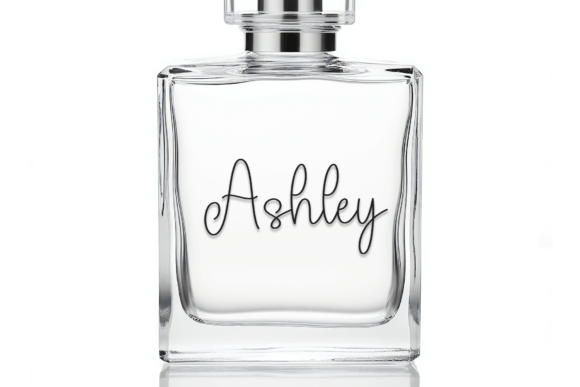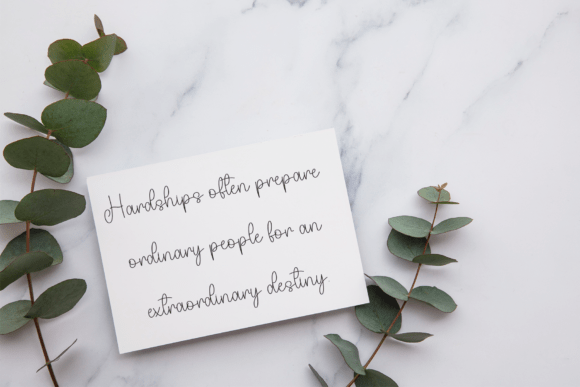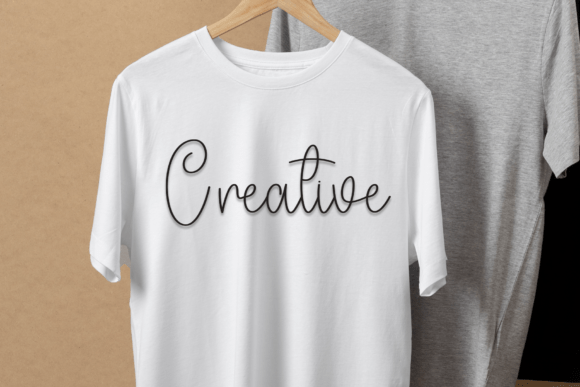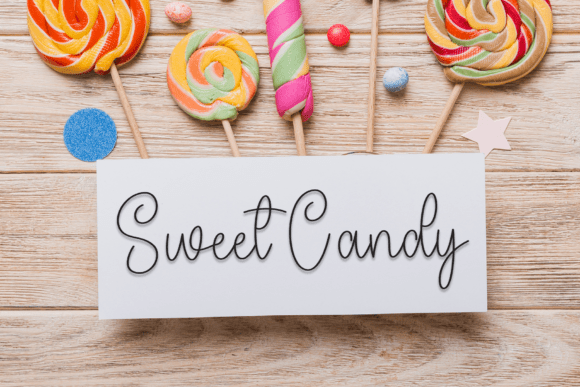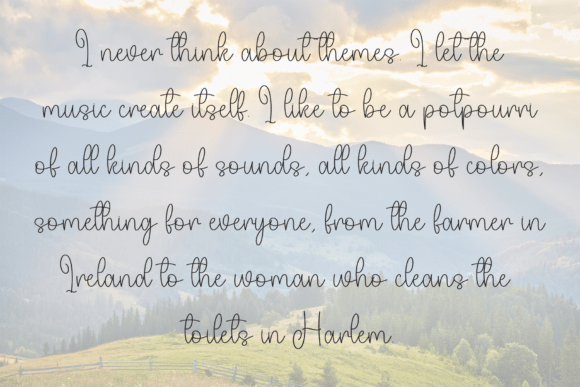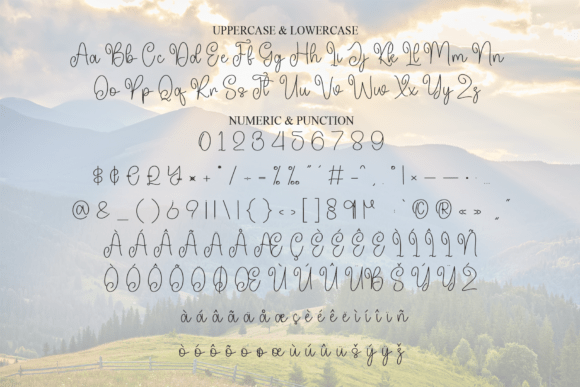
Introduction to Highland Sunshine Font
Remember the moment you stumbled upon the perfect font for your creative project? The one that made all the difference between a good design and an exceptional one? For designers, finding that elusive font can be a game-changer. And, if you’re looking for a stylish handwritten script font that exudes elegance and modern flair, look no further than the Highland Sunshine Font.
This beautiful typeface is more than just a design resource – it’s a key to unlocking the perfect visual identity for your brand, social media, or invitations. With its flowing strokes and organic curves, the Highland Sunshine Font brings warmth and sophistication to any project. Whether you’re working on a high-quality design or a simple yet effective social media post, this font is sure to add a personal, refined touch with effortless charm.
Key Features of Highland Sunshine Font
- High-quality, hand-drawn design ideal for creative projects and design resources.
- Features a unique, whimsical style with intricate details, making it perfect for adding a touch of personality to designs.
Honest Review: Highland Sunshine Font
I recently stumbled upon the Highland Sunshine Font while searching for a unique design resource for a creative project. Initially, I was drawn in by the font’s elegant and rustic vibe, which seemed perfect for a rustic-themed magazine cover.
What works well about the Highland Sunshine Font is its versatility. It’s available as a free download, making it an excellent option for designers on a budget. The font is also highly customizable, allowing you to easily adjust the size, color, and style to suit your needs. Additionally, it features a transparent background, which makes it easy to layer over other design elements.
- Rustic, elegant vibe
While the Highland Sunshine Font is a great addition to any design toolkit, there are a few limitations to be aware of ⚠️. For one, the font is not as extensive as some other options, with only a limited number of characters and styles available. Additionally, the font may not be suitable for use in very small text sizes, as it can appear somewhat blurry.
Overall, I’m impressed with the Highland Sunshine Font and would definitely recommend it to designers looking for a high-quality, free font for their creative projects ✨. With a little creativity and experimentation, this font has the potential to elevate your designs to the next level.
Using Highland Sunshine Font in Creative Projects
Tips for Getting the Most Out of Highland Sunshine Font
To get the most out of the Highland Sunshine Font, use it in combination with a transparent background to create a clean and modern design. Experiment with different font sizes and colors to find the perfect combination for your creative project.
The Highland Sunshine Font is commonly used in logos, posters, social media graphics, and other creative projects where a high-quality, free design resource is needed. Its transparent background makes it easy to use in various design contexts.